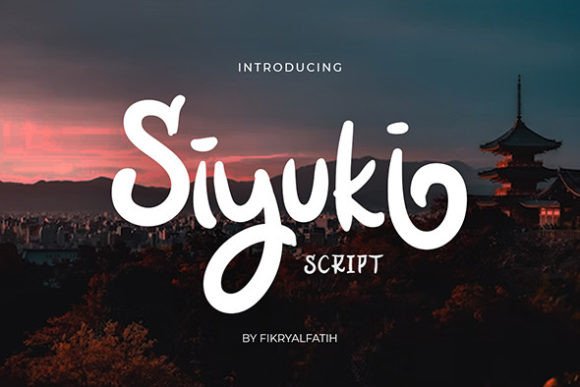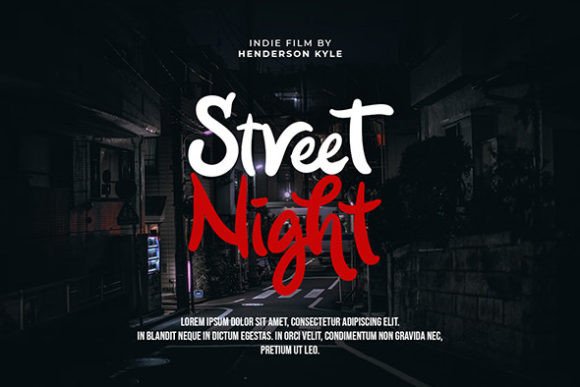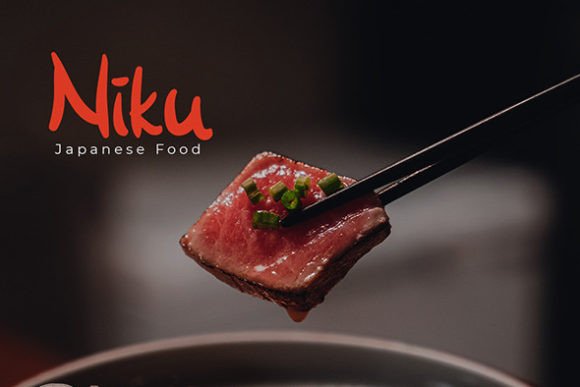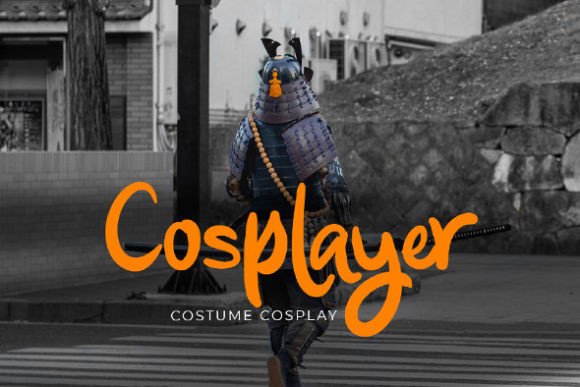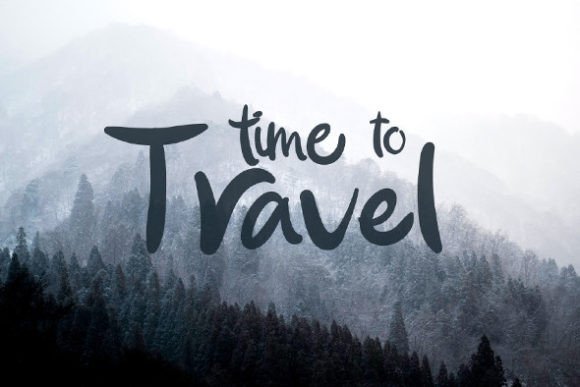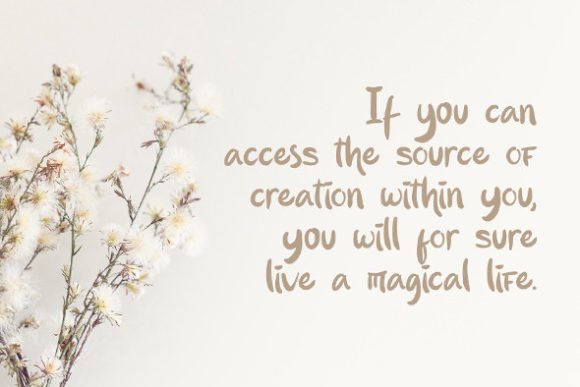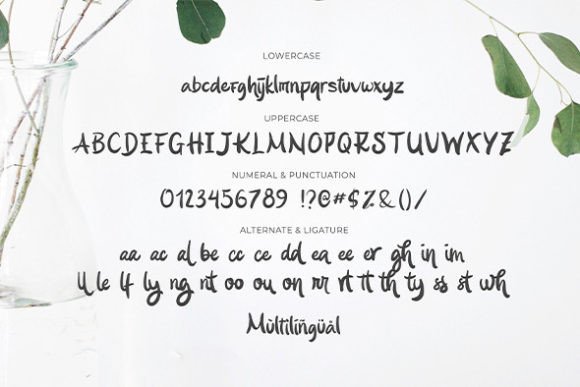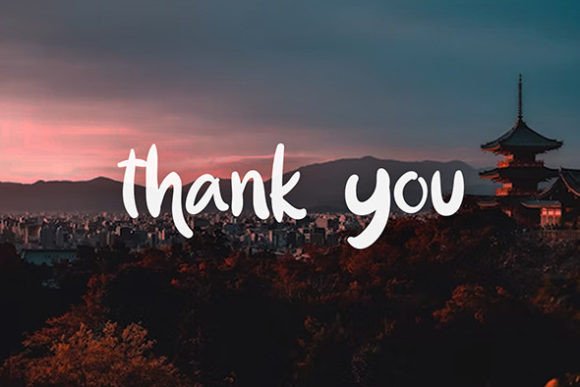
Siyuki Font
Siyuki is a Script Font inspired by the Japanese-letter style, suitable for any Asian theme design & promotion to create a cool design!
Siyuki is perfect for branding, logos, movie posters, invitations, social media posts, product packaging, merchandise, blog designs, cute style designs, Book Titles/Covers, and more. This font is PUA encoded, which means you can access all of the glyphs and swashes with ease!